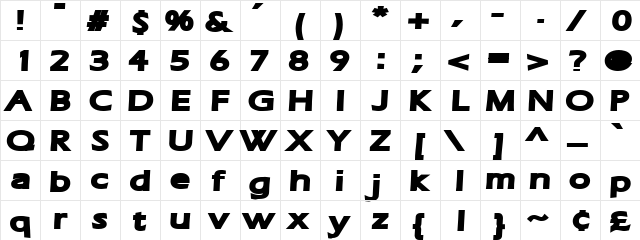
Ruffian bold Normal
Design Context for Ruffian bold Typeface
Ruffian bold offers clean, dependable letterforms without strong stylistic allegiance, making it a practical choice for designers who need flexibility. The heavy weight commands attention and anchors typographic hierarchies.
Pro Tip: Use Ruffian bold in both headline and body roles to test its range before committing to a single application.